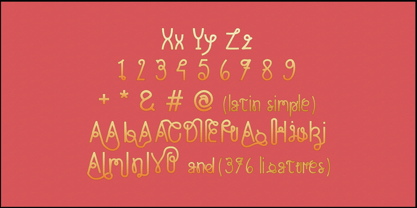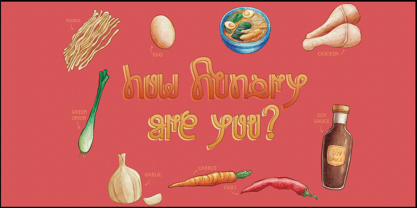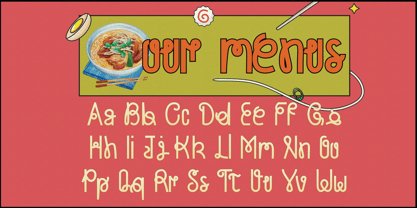
Bihun
by Jetsmax Studio
The Bihun Font Family was designed by Khairil Anwar and published by Jetsmax Studio. Bihun contains 1 styles. More about this family
Introducing Bihun Font, a typeface born from the delicate strands of rice vermicelli, capturing the essence of its slender and elegant form. This font embodies the graceful curves and simplicity found in every swirl of vermicelli, translating them into a visually appealing and versatile set of characters.